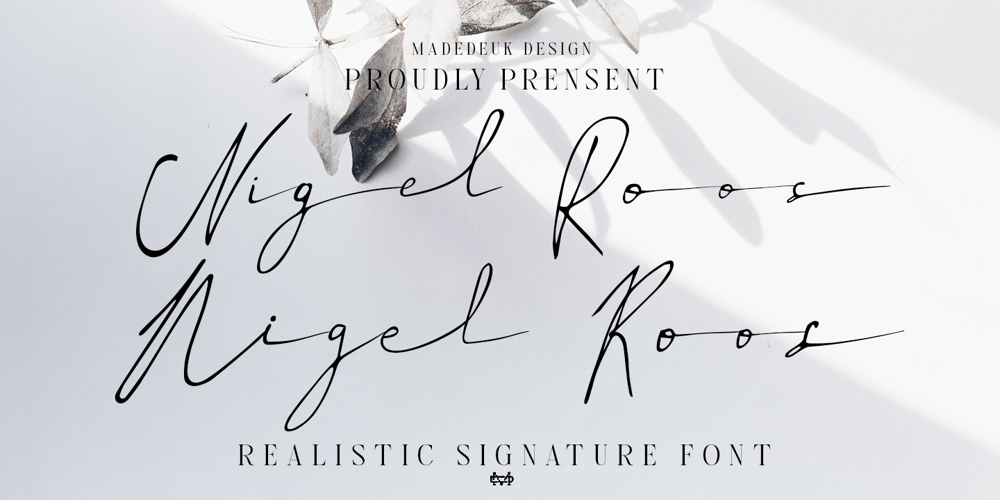
Nigel Roos
Nigel Roos font
Nigel Roos Font Family was designed by madededuk and published by madeDeduk. Nigel Roos contains 5 styles and family package options. Really excited to introduce Nigel Roos is a realistic signature to give a incredible impression for all your project design. Nigel roos come with two alternative with extra swashes and more than 140 ligatures in each font to make everything look realistic handmade signature.Included: Uppercase Lowercase Number & Symbol International Glyphs Multilingual Support Ligature Hope you enjoy it.